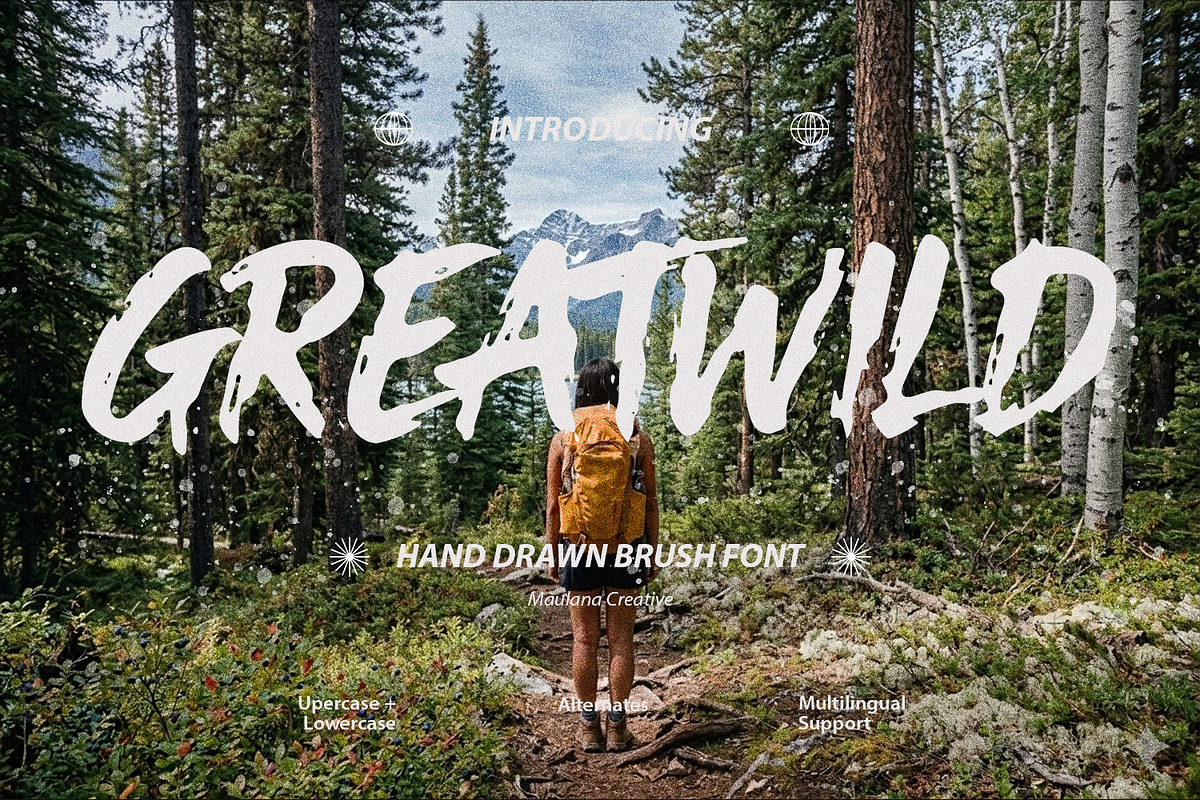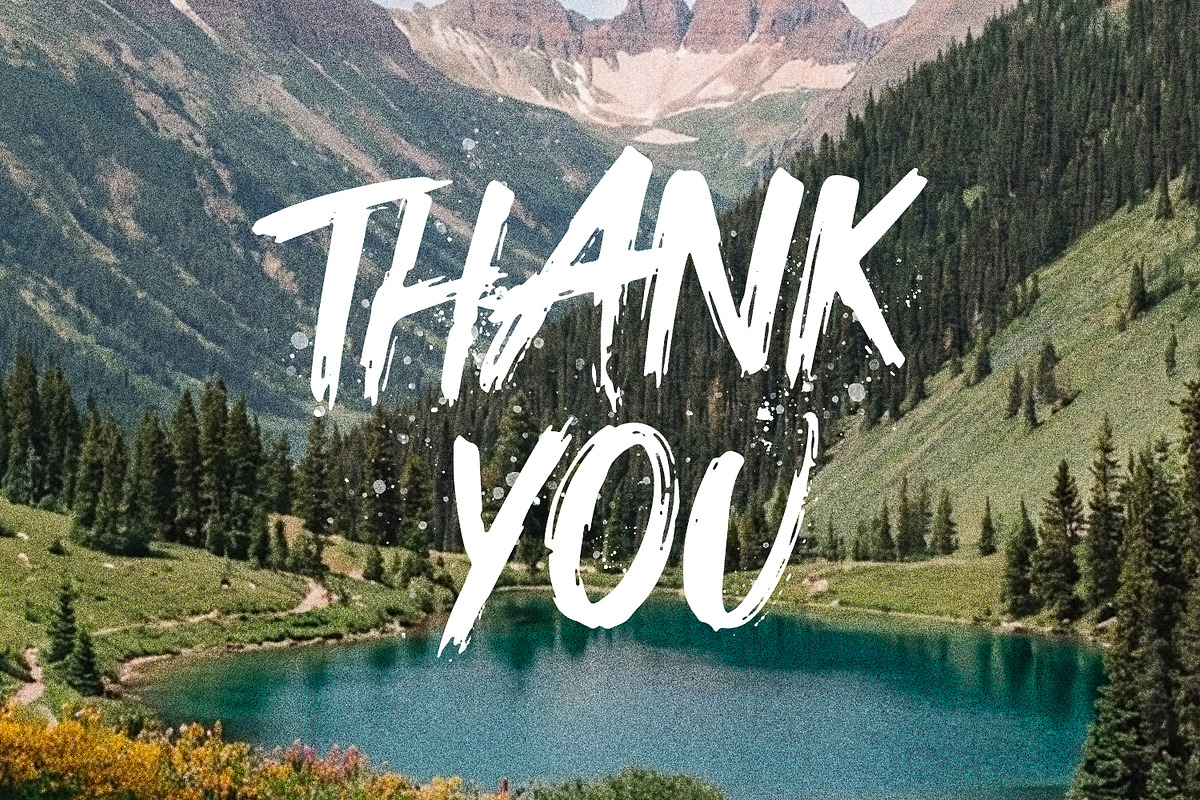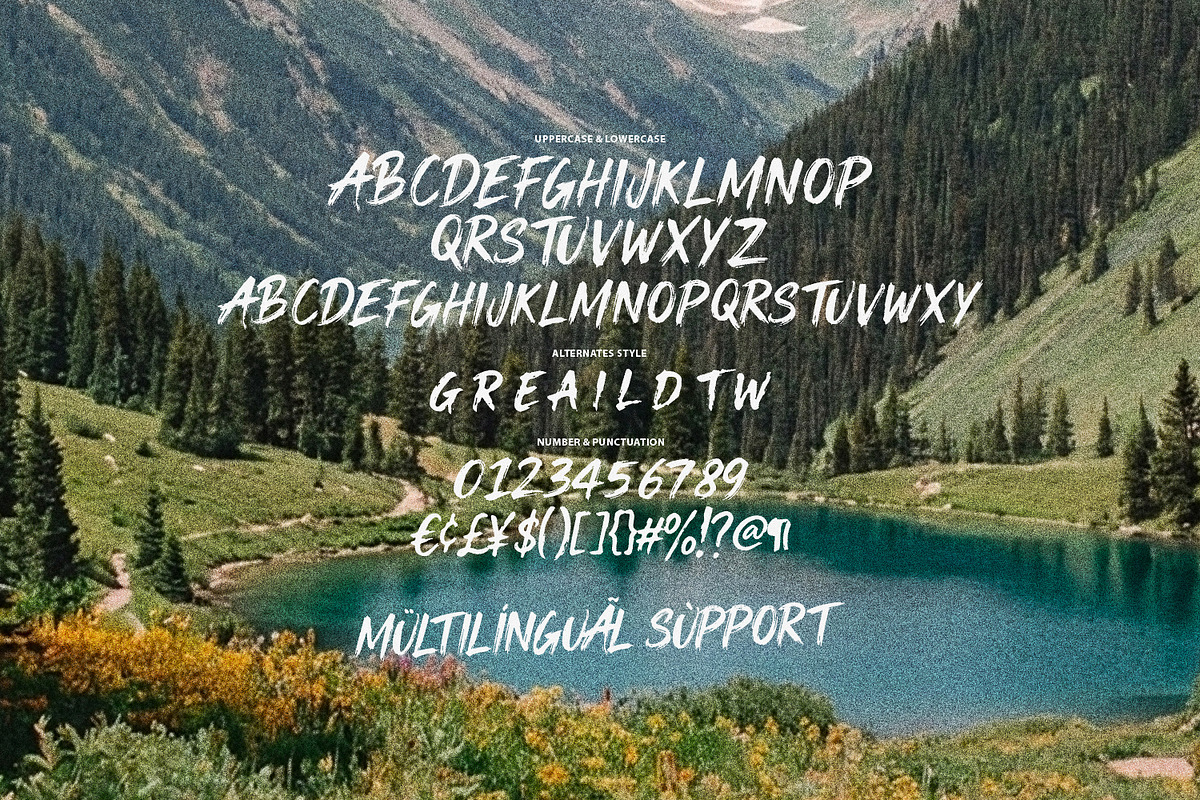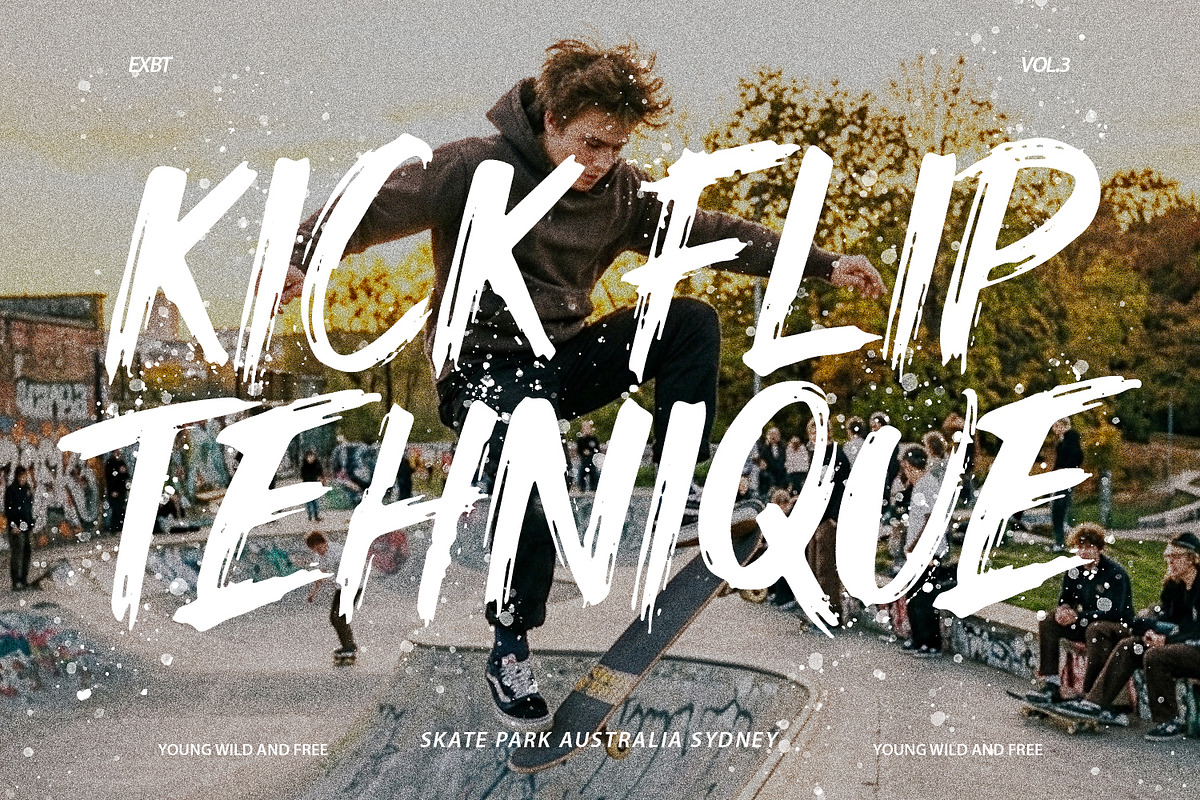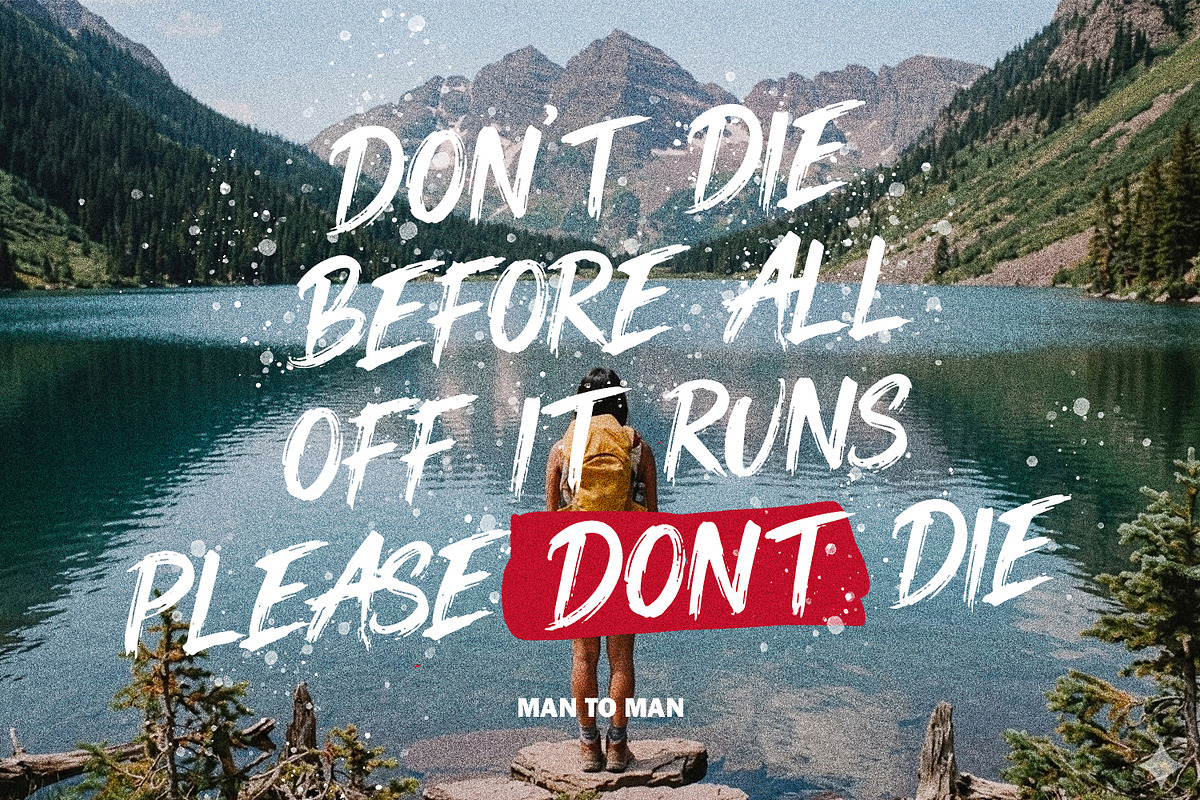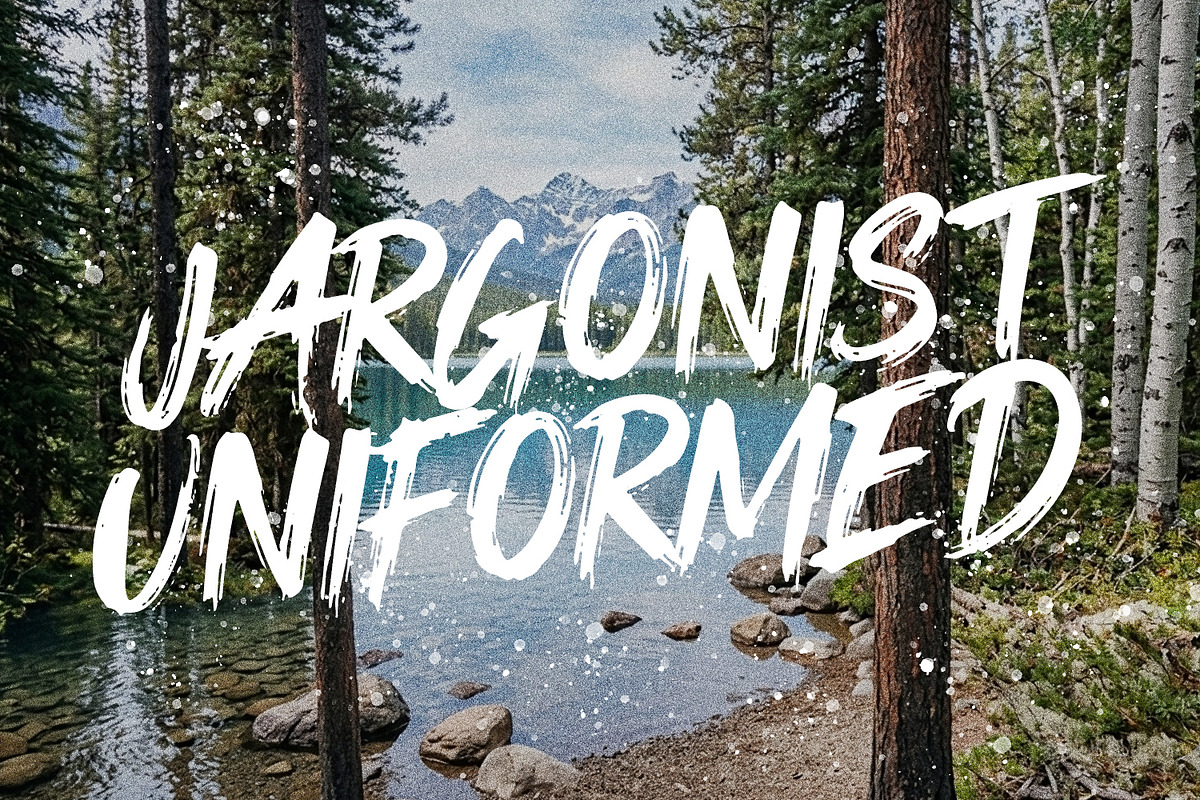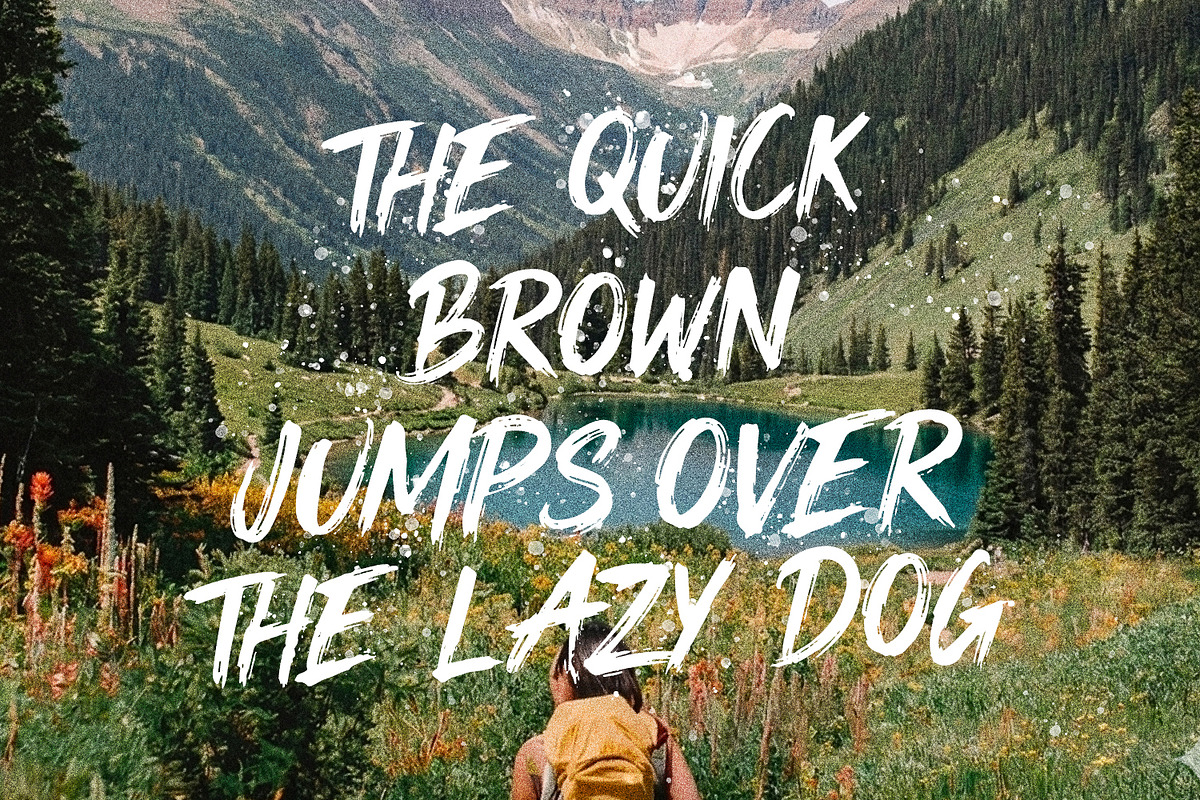
Greatwild Hand Drawn Brush Font
Greatwild is a raw, energetic hand-drawn brush font designed to give your creative projects a powerful, authentic edge. This font boasts rough-textured brush strokes and a dynamic, forward motion, perfect for branding that needs a strong, natural presence. Whether you're designing posters, music covers, website headers, or merchandise that requires a touch of the wild, Greatwild delivers an impactful aesthetic. It features uppercase and lowercase characters, standard ligatures, and multilingual support.
Numbers and punctuation
Alternate for a natural handwriting flow